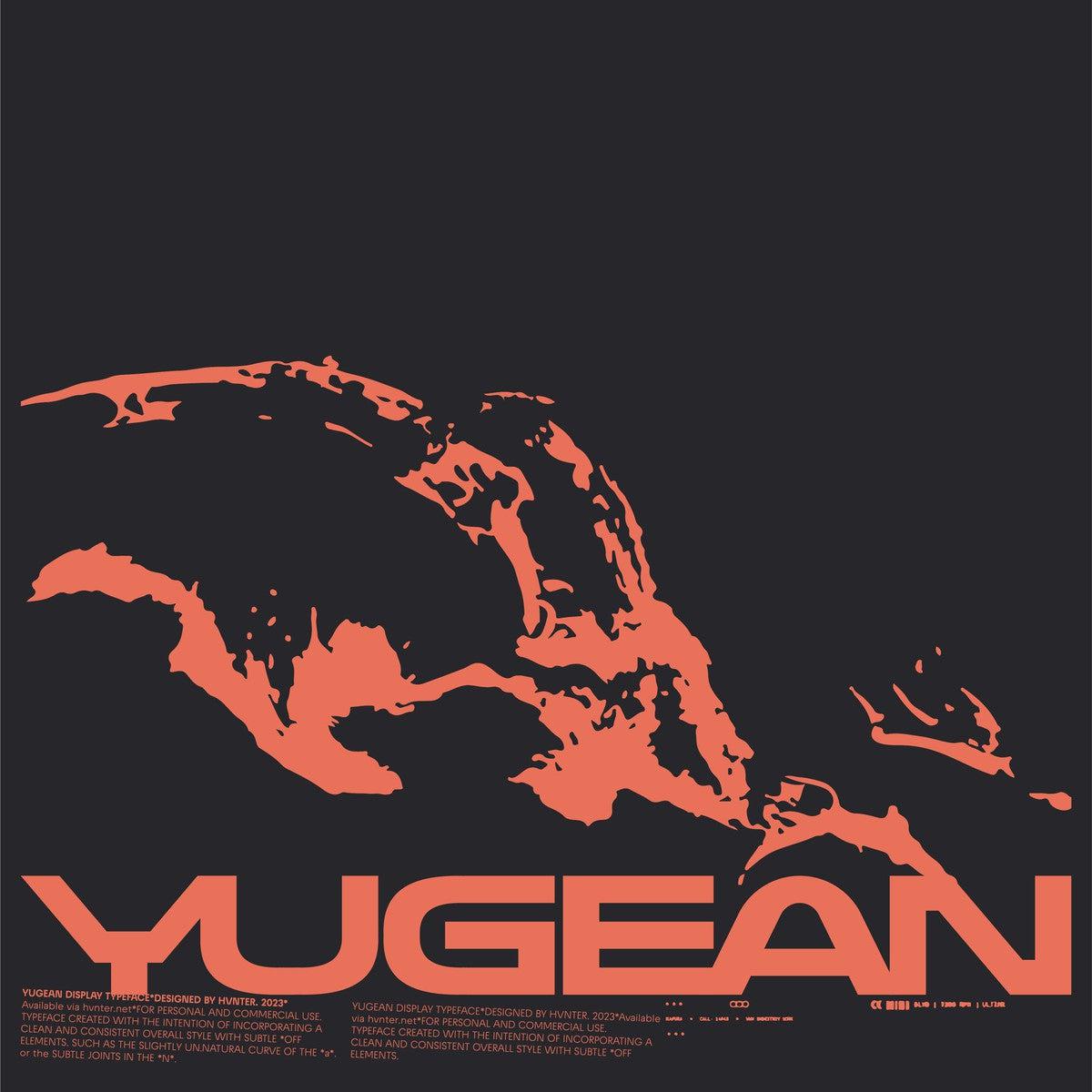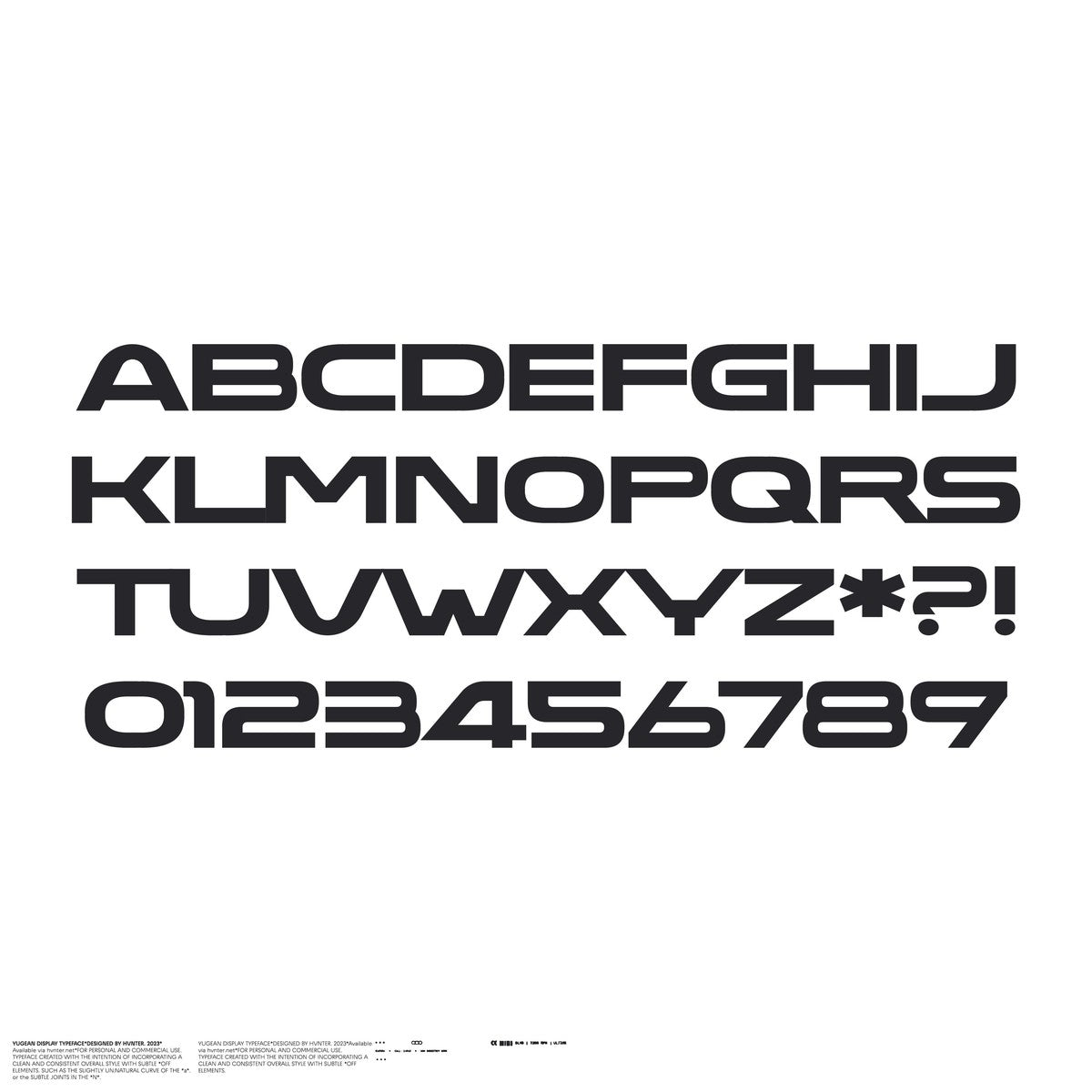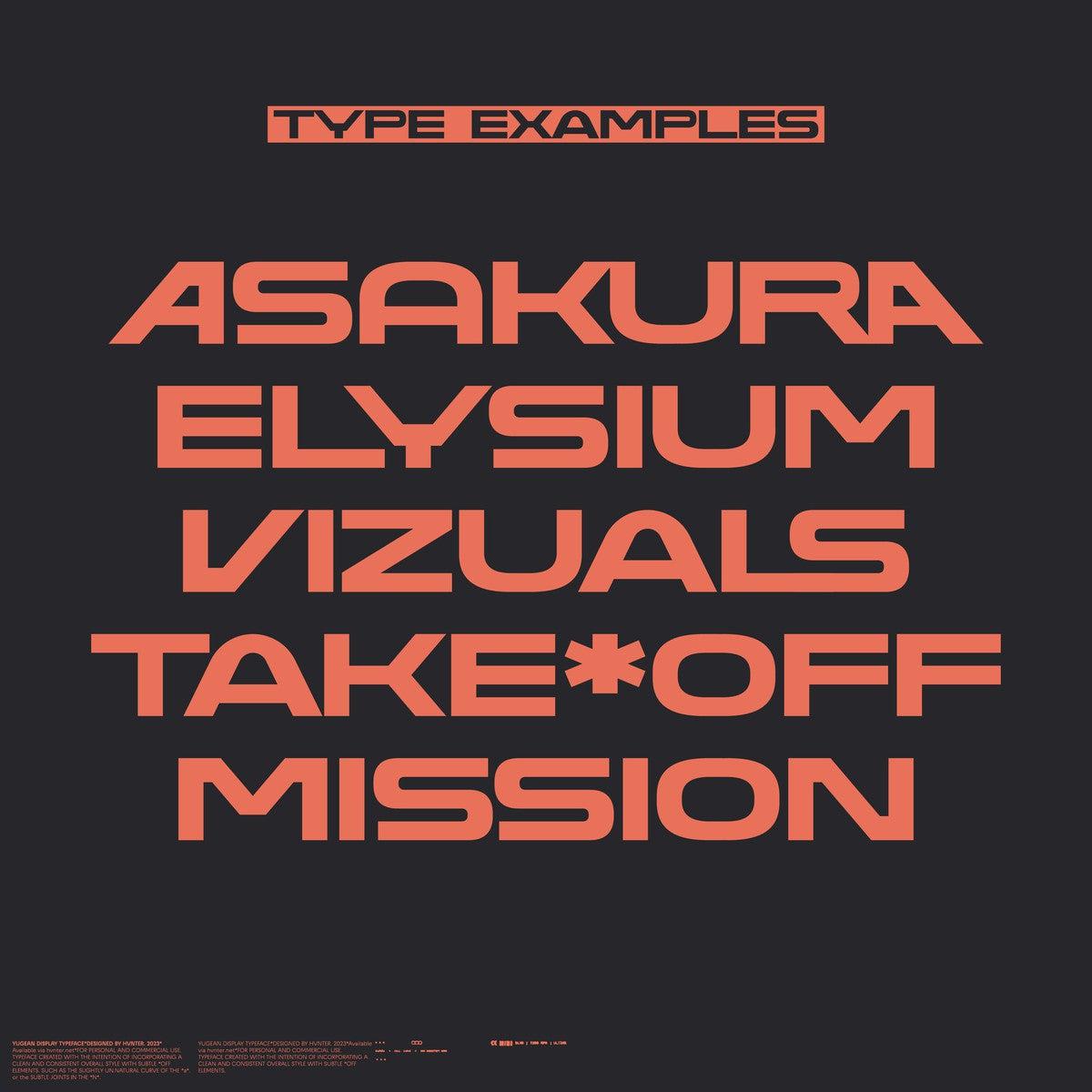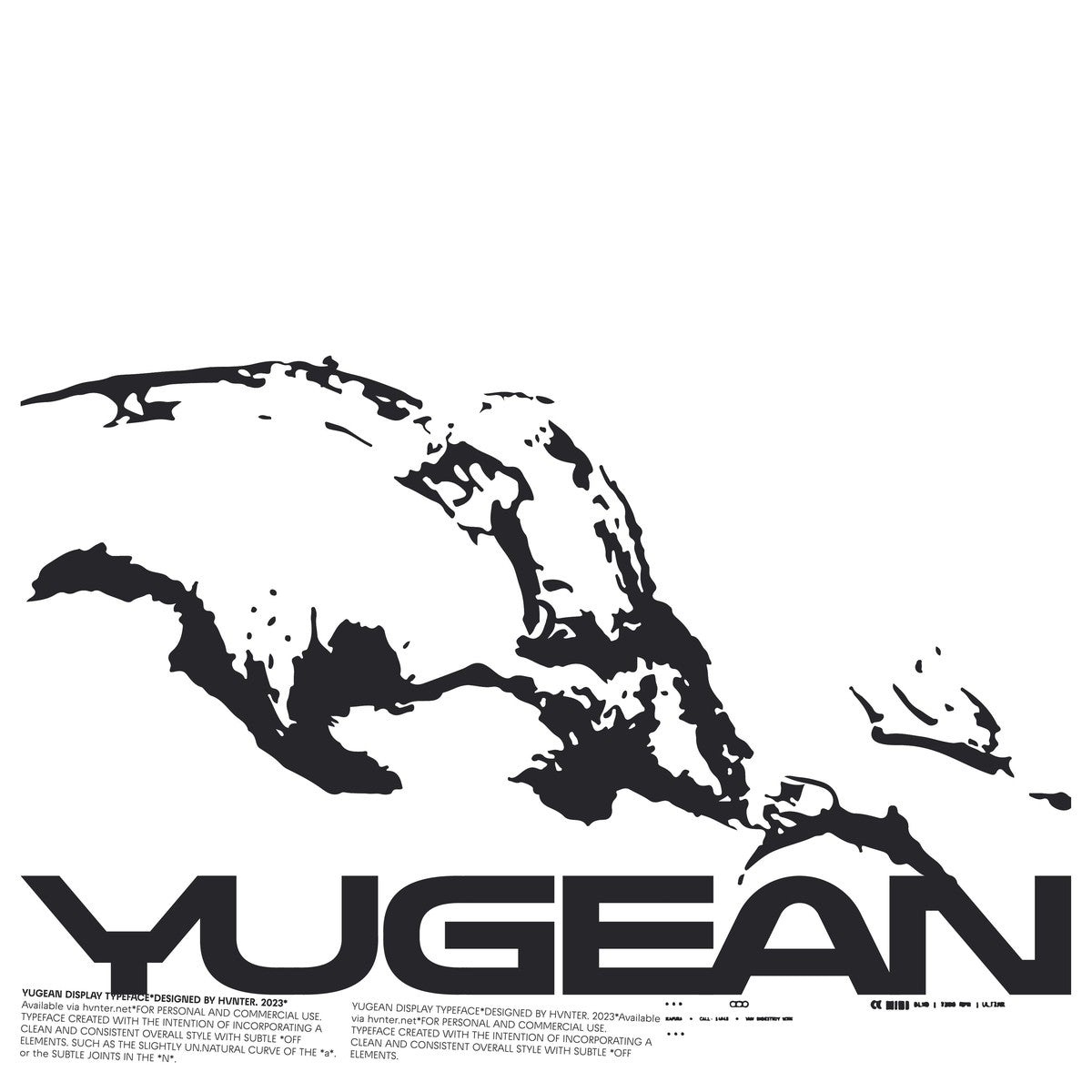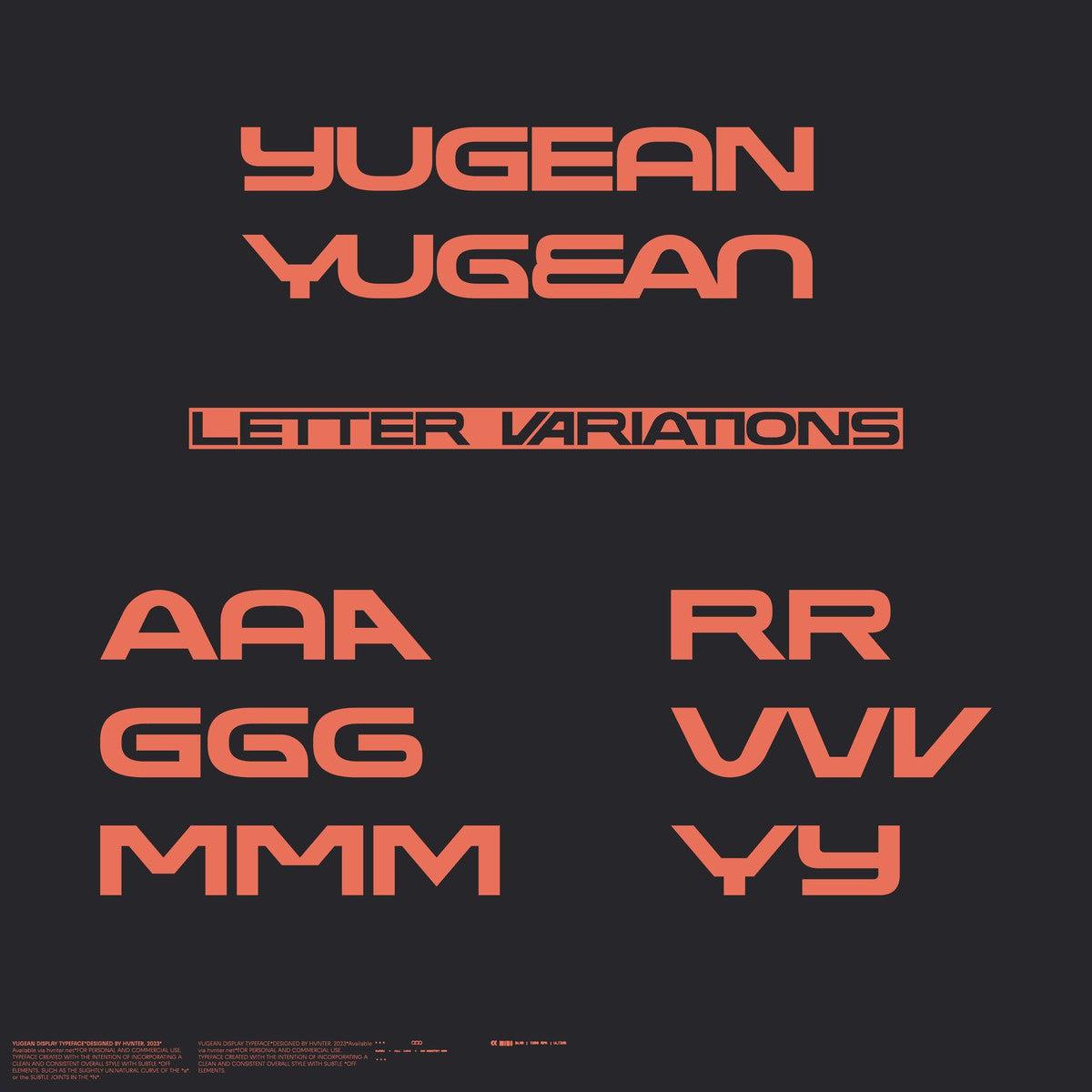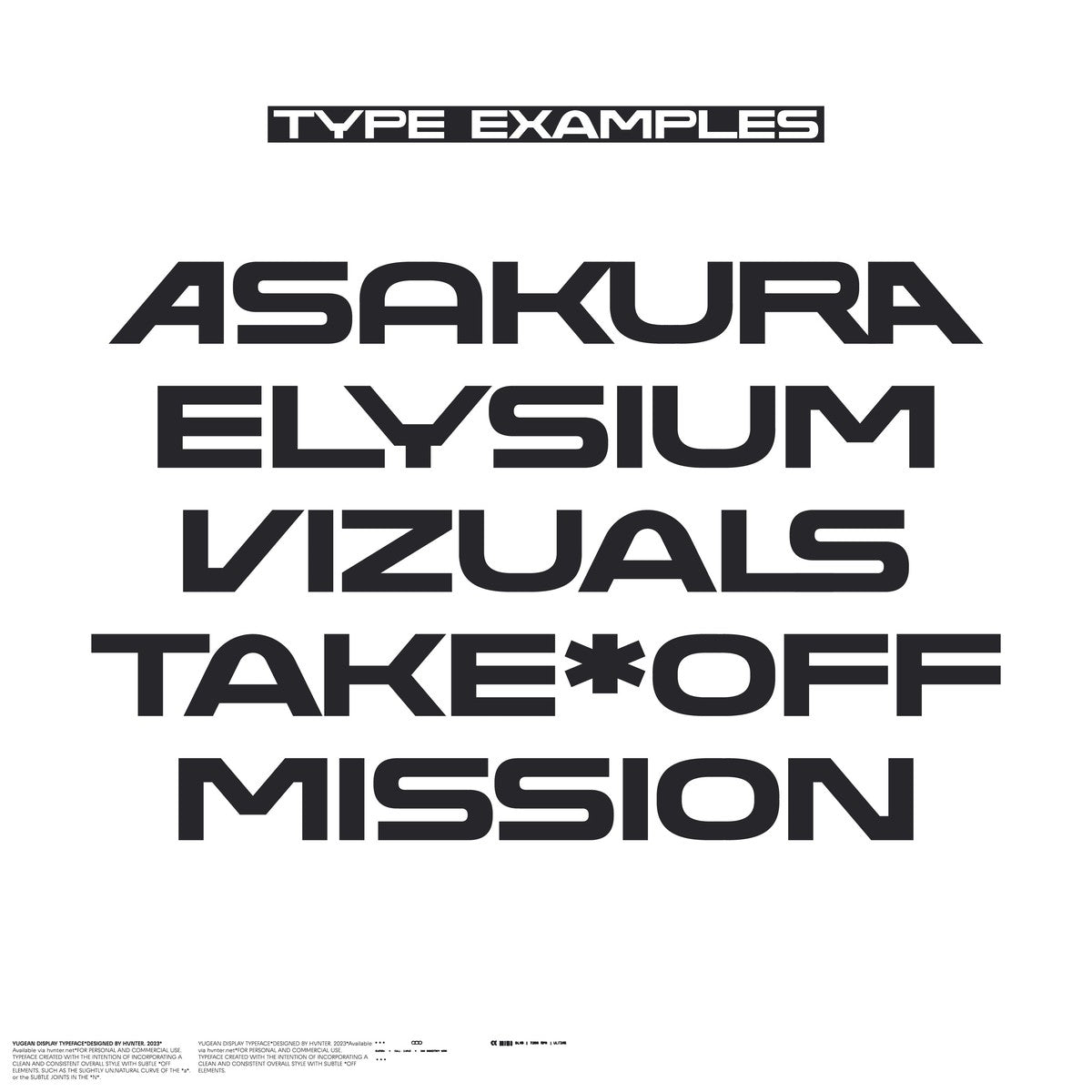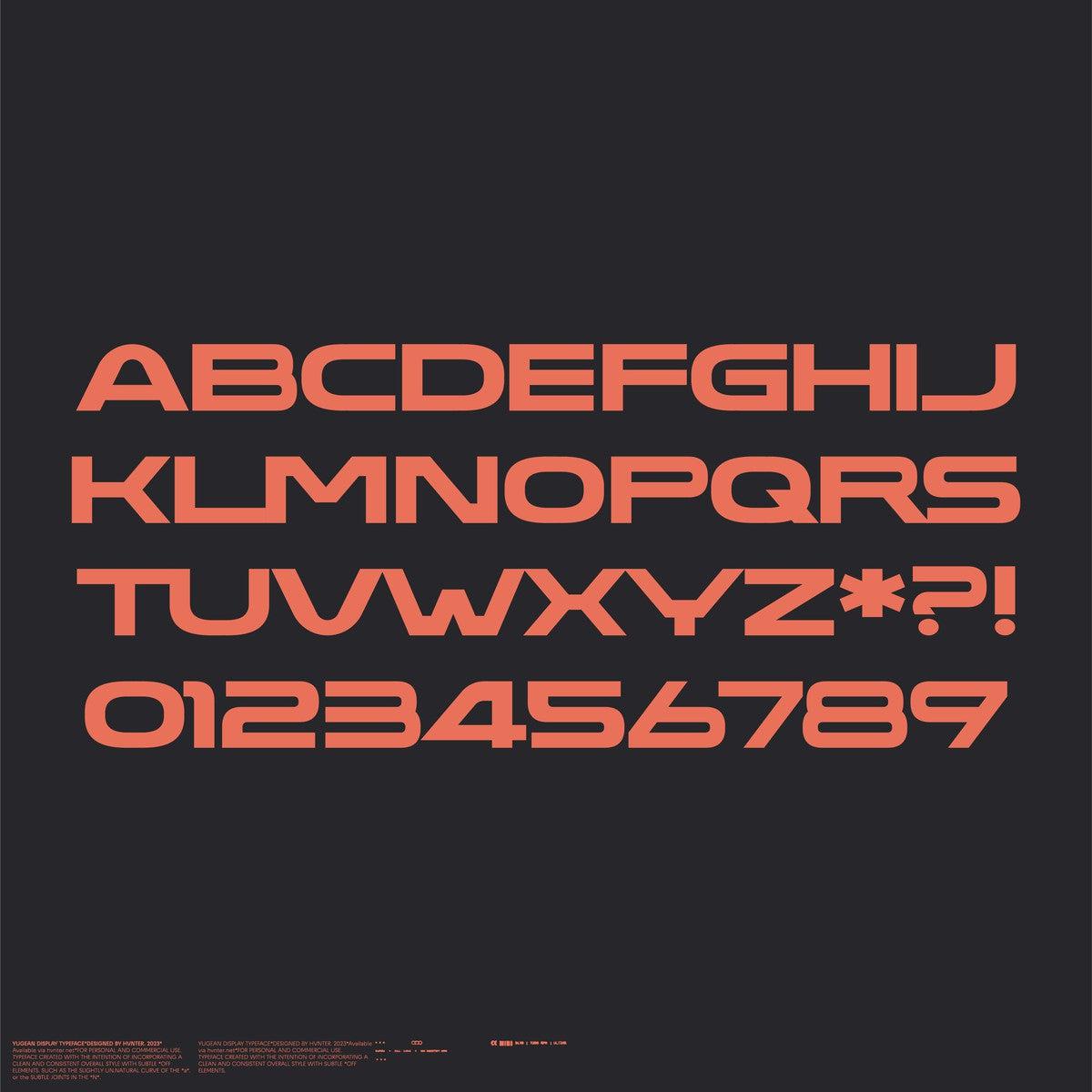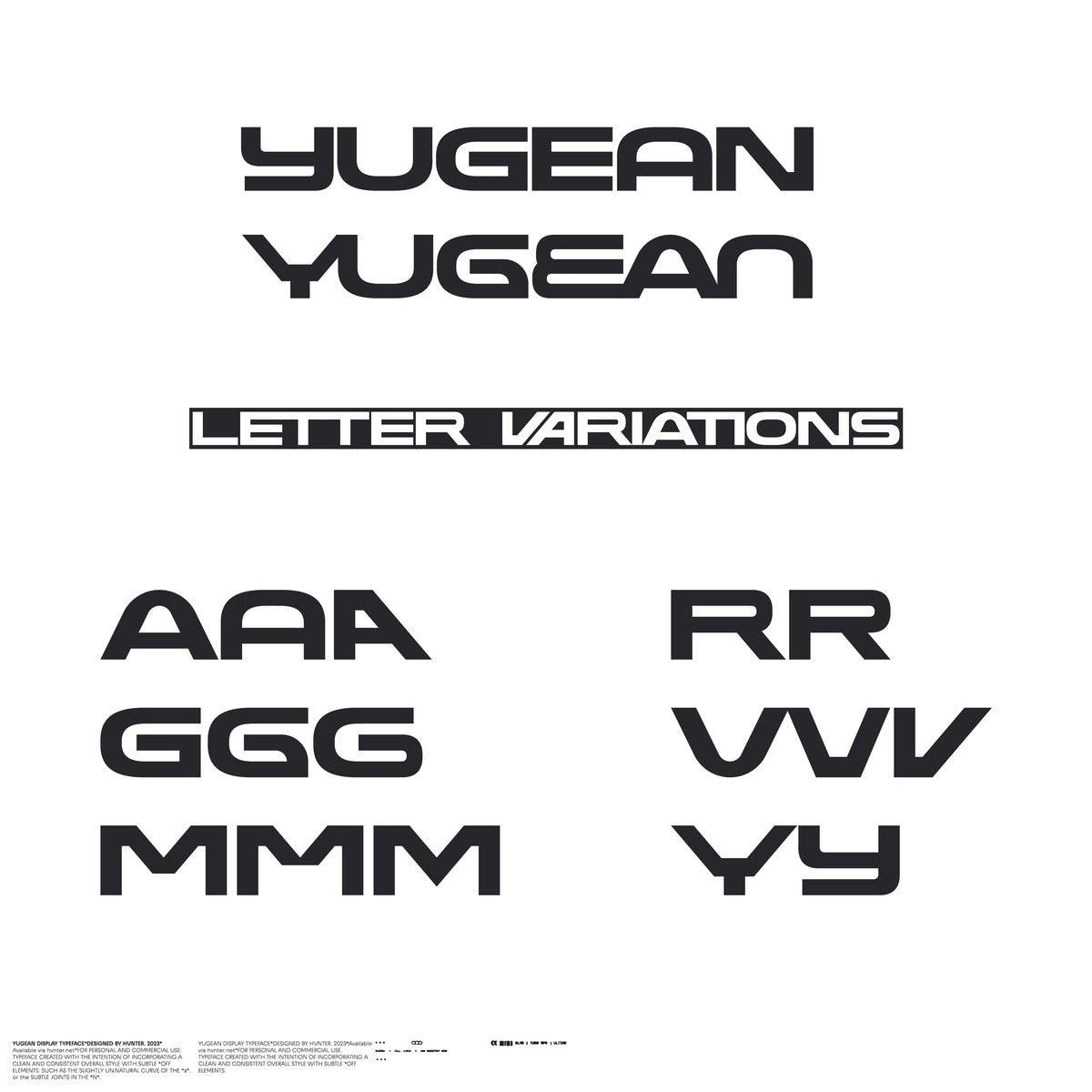
YUGEAN Typeface
The YUGEAN Typeface is a .otf font file that includes a range of characters from A-Z, numbers 0-9, basic symbols, and letter variations. It is categorized under hvnter, font, typeface, type, asset, logo, fonts, y2k fonts, and display fonts.
Ideal for contemporary branding and digital design projects. Perfect for posters, logos, album covers, and social media graphics, ensuring a bold and modern typographic presence.